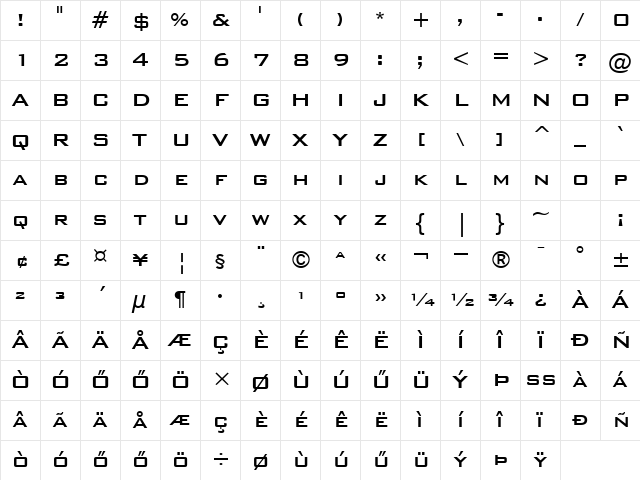
H_Bank Gothic Medium BT Regular Free Font
H_Bank Gothic Medium BT Regular
Design Context for H_Bank Gothic Medium BT
H_Bank Gothic Medium BT takes a clean, functional approach - its unadorned letterforms prioritise legibility and work reliably across screen and print environments.
Works well in signage, UI design, marketing materials, and anywhere clean functional typography is needed.
Font Pairing: Works well alongside a characterful serif or display font that can carry the expressive load while H_Bank Gothic Medium BT handles the functional copy.
Pro Tip: Use H_Bank Gothic Medium BT for UI labels, navigation, and short-form body copy where clean legibility is the priority.